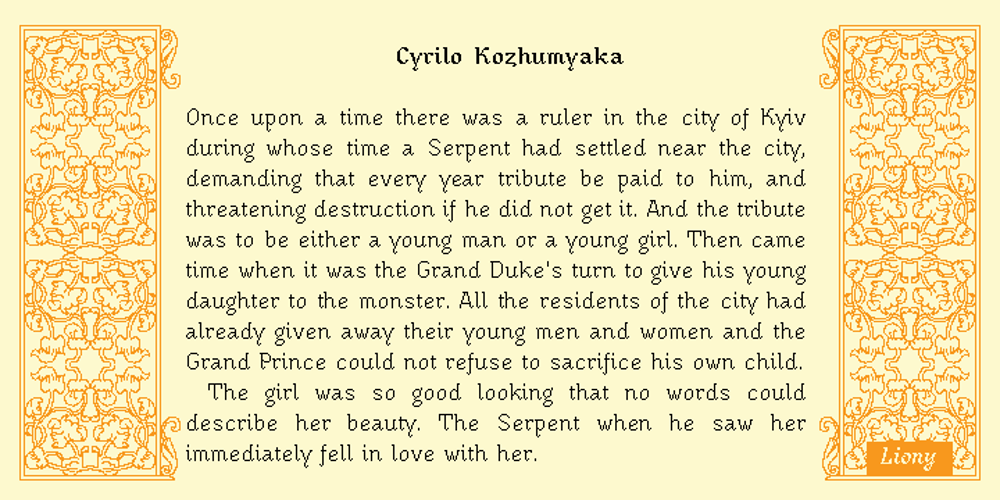
Liony Font Family was designed by Cyrill Tkachev and published by Tkachev. Liony contains 4 styles and family package options. Liony is a pixel font with four font styles. Liony is an experiment to convert the script-style calligraphy into bitmap format. It looks great in display sizes and also works well when used smaller.